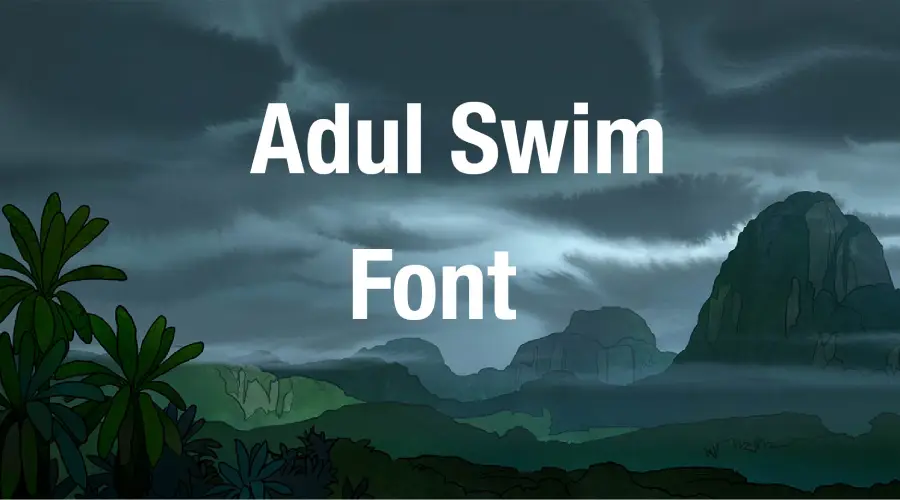
About the Adult Swim font
Adult Swim is an American TV network for animated and live-action shows aimed at adults. It shares channel space with Cartoon Network. Its shows include Rick and Morty, Robot Chicken and The Venture Bros.
The logo is the part people search for. It shows the network name inside square brackets, in tight, bold lettering. Fans spot it on show bumpers, merchandise and fan edits, so the look is easy to recognize. If you only want the bracket idea, type your words inside plain square brackets in any font you own.
Helvetica was designed in 1957 by Max Miedinger and Eduard Hoffmann. It is a neo-grotesque sans serif with no decorative details. Its condensed bold styles keep short words tight and strong, which suits a logo built around a few words in brackets.
For a watch-party poster, use the bold style for the title and a plain sans for the date and place. Keep the title to a few words so it reads from across a room.
Fan art, YouTube thumbnails and watch-party posters are common uses. Keep the text short, and use the font for your own wording instead of the network’s logo.
What font does Adult Swim use?
The logo is usually matched to Helvetica Neue Condensed Bold. That is a close match, not a confirmed font.